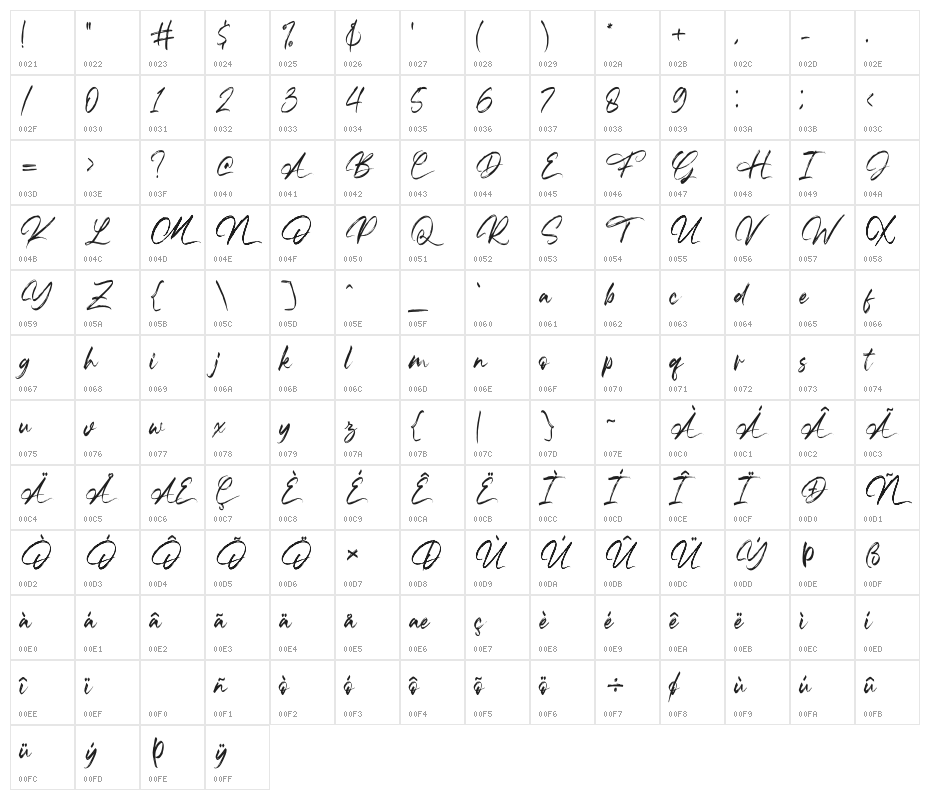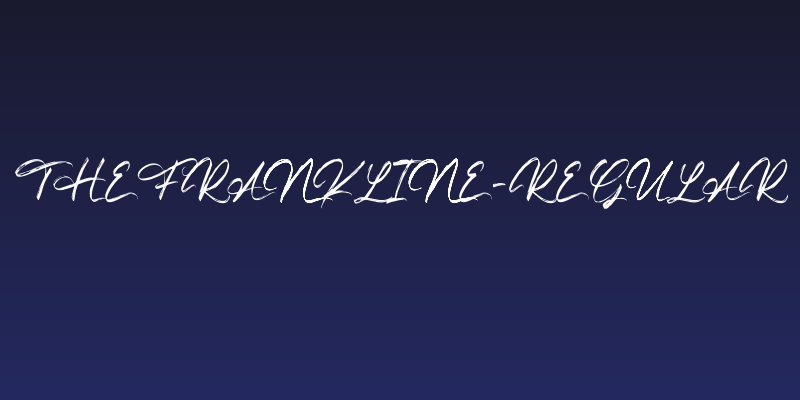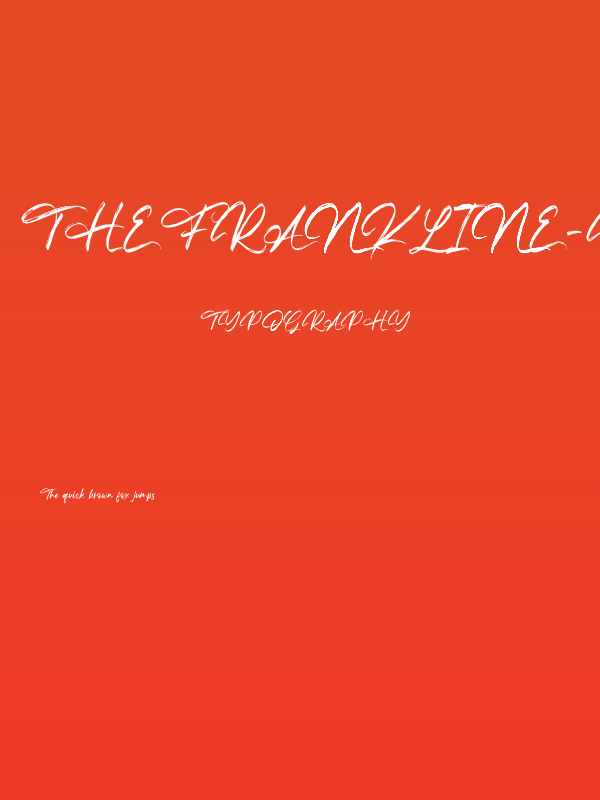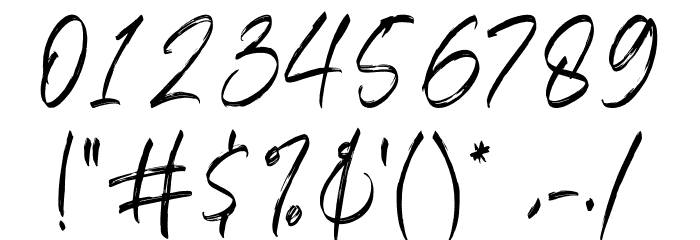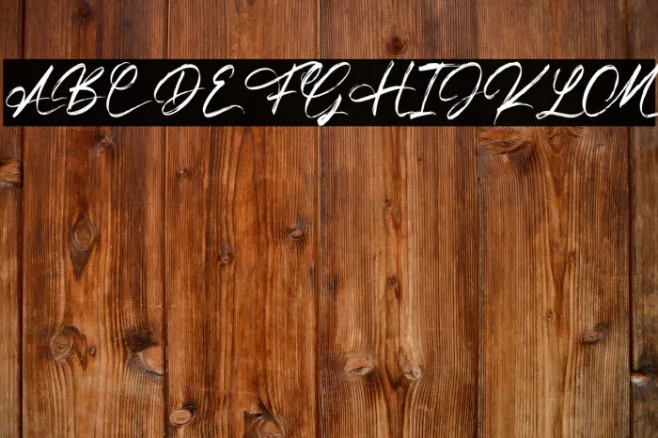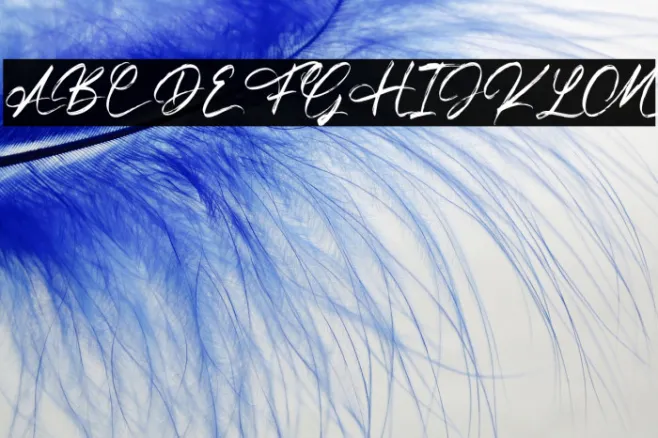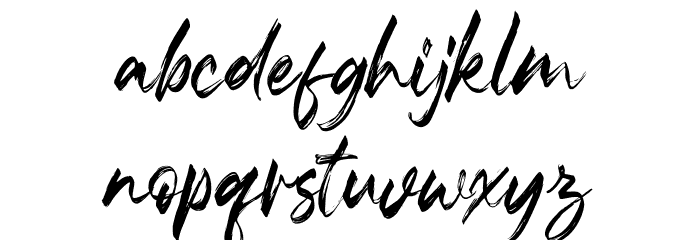
TheFrankline-Regular Font
TheFrankline-Regular Description
This font exhibits a dynamic and fluid script style, characterized by its elegant and flowing cursive letters. The strokes are smooth and connected, giving it a handwritten appearance that is both sophisticated and approachable. The uppercase letters are slightly more elaborate, with graceful loops and swirls, while the lowercase letters maintain a consistent rhythm and flow. The numerals and special characters are designed to match the overall aesthetic, ensuring a cohesive look across all text. This font is ideal for projects that require a personal touch, such as invitations, greeting cards, and branding materials.